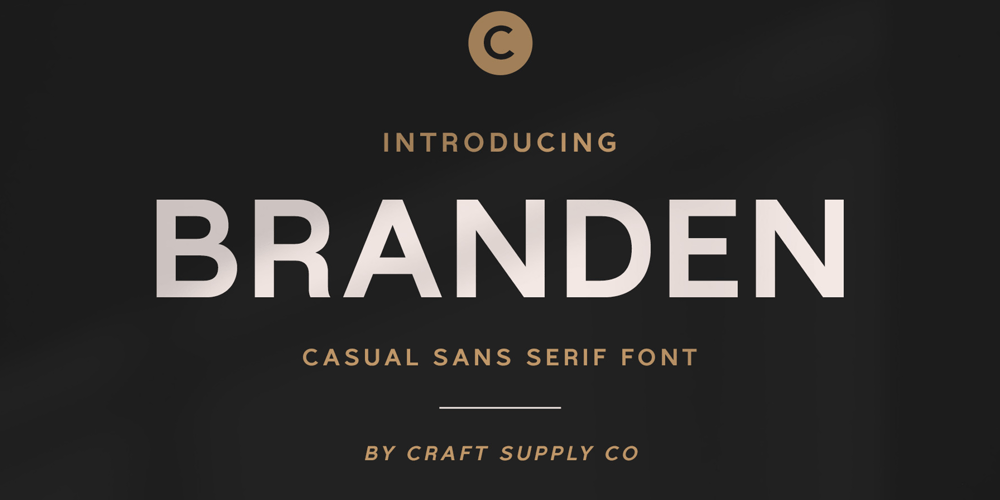
Branden Font Family was designed by Trio Nazzar Saputra, Wahyu Hadi Yuana and published by Craft Supply Co. Branden contains 4 styles and family package options. Branden – Casual Sans Serif Font is a modern sans serif font family whose design refers us to the style of casual sans serif. The distinctive features of Branden – Casual Sans Serif Font are the relatively low contrast of strokes, the slightly squarish shapes of round characters and the emphasized business like simplicity.